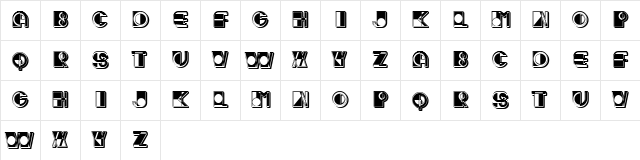
Kleid Regular
Design Context for Kleid Typeface
Kleid is a composed and adaptable typeface that performs quietly and consistently across a wide range of design contexts.